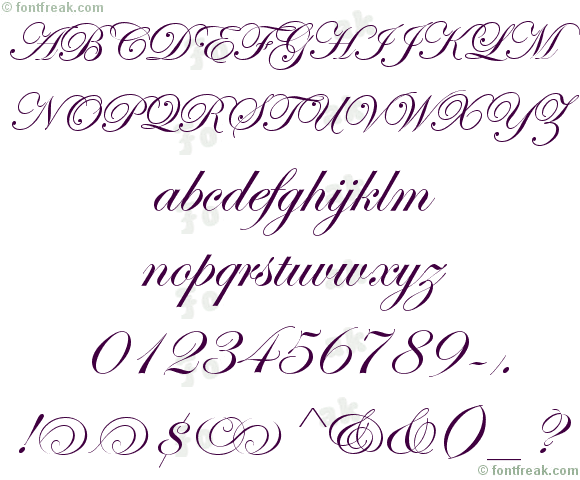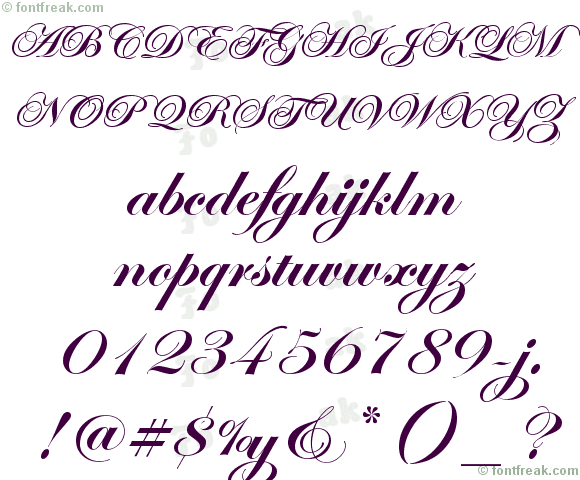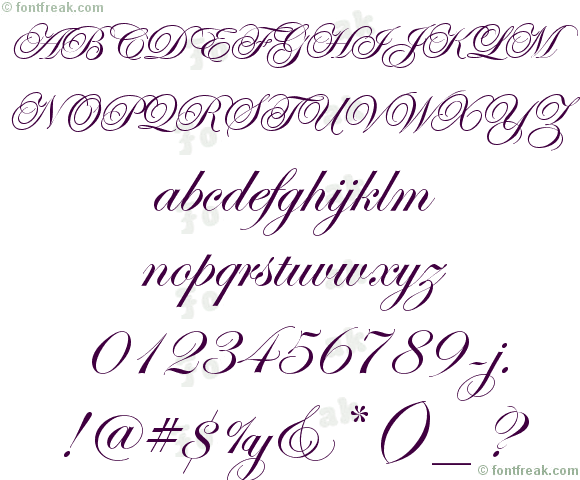
Easy Street EPS
About Easy Street EPS
The Easy Street EPS font is a captivating script typeface that exudes elegance and charm, making it an excellent choice for a variety of design projects. Its flowing, cursive style features smooth, sweeping strokes that create a sense of sophistication. The font showcases a moderate stroke weight, allowing it to maintain legibility while still imparting a decorative flair. With its graceful curves and artistic embellishments, Easy Street EPS stands out as a visually appealing option for those seeking a touch of luxury in their typography.
This font is especially well-suited for wedding invitations, where its romantic aesthetic can beautifully convey the joy of the occasion. Additionally, it works wonderfully for branding materials, such as logos or business cards, allowing small business owners to add a personalized touch to their marketing efforts. Content creators can use Easy Street EPS for social media graphics, giving their posts an inviting and stylish appearance. Furthermore, it is ideal for event posters, where the decorative features can draw attention and create an engaging visual experience.
In conclusion, the Easy Street EPS font free download is a standout choice for those who appreciate the beauty of script typography. Its unique blend of elegance and accessibility makes it a valuable asset for any designer's toolkit, ensuring that projects not only communicate effectively but also resonate with their intended audience.